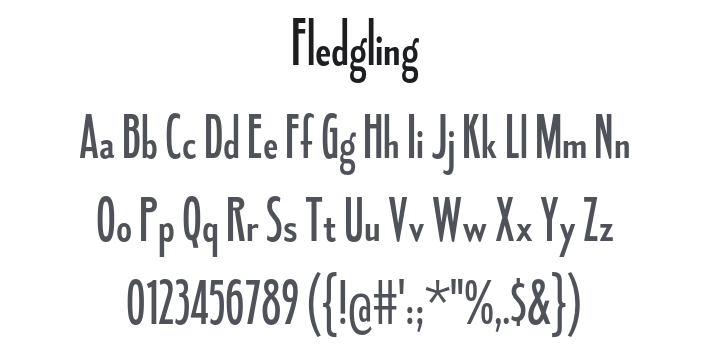
Fledgling Font
About Fledgling
Fledgling is a refined, condensed sans serif that combines elegance with efficiency. Its high waist, low x-height, and tall ascenders create a graceful vertical rhythm, while subtle curves soften the geometry. Eight weights with matching obliques let it move from delicate titles to commanding headlines, maintaining clarity even in tight spaces. With Latin, Greek, and Cyrillic support plus professional typographic features, it’s ready for global use. Balanced between Art Deco sophistication and modern precision, Fledgling brings tailored style to branding, editorial, and digital design.